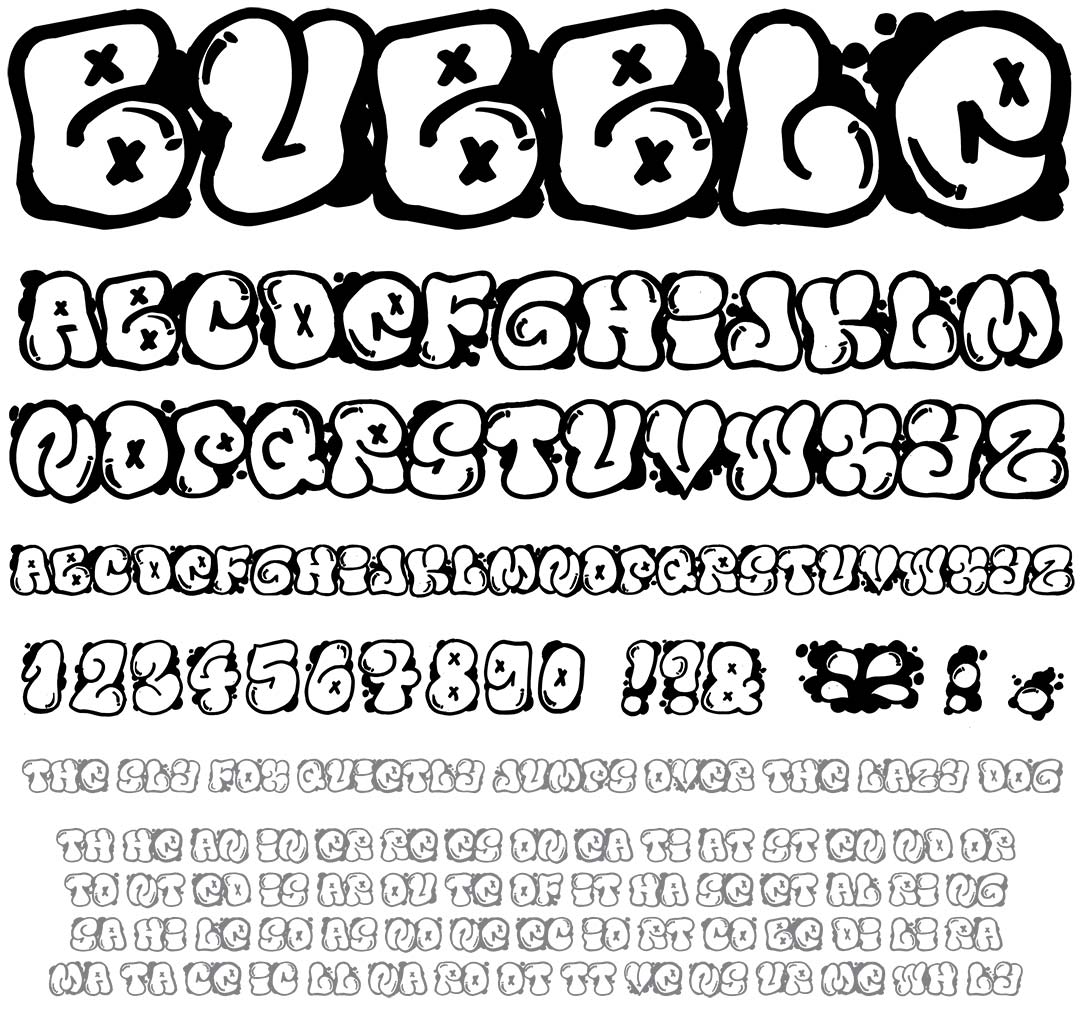
El & Font Bubble
El & Font Bubble Graffiti Alphabet
El & Font Bubble Graffiti Font Family
El & Font Bubble is a rough & primitive throwie style which features outlines only with details but no fill. This childlike graffiti style works best at larger sizes & has the definite look of hand doodled bubbles.